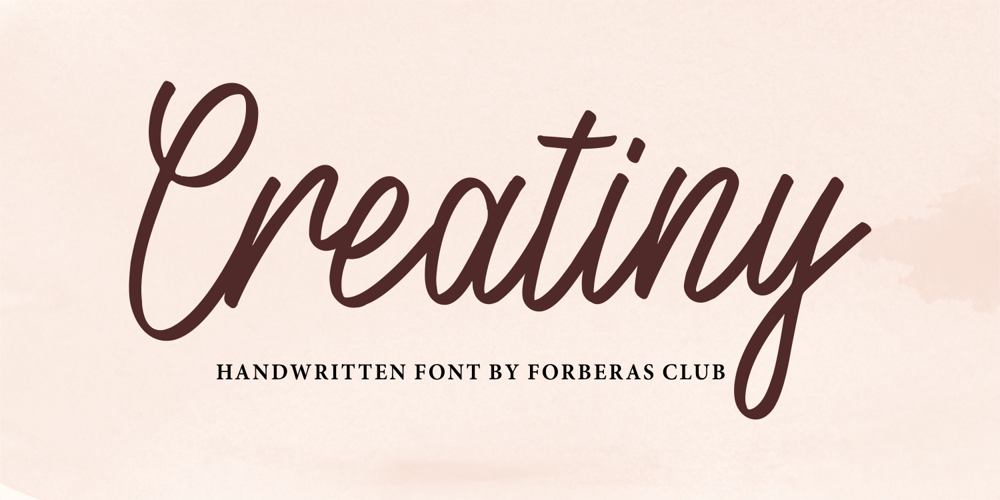
Creatiny Font Family was designed by ANGGI HERMAWAN and published by Forberas Club. Creatiny contains 1 styles and family package options. Creatiny is modern handwritten.Recommended to use this font for wedding party, invitation, memorable moment, love story and many more with special moment.